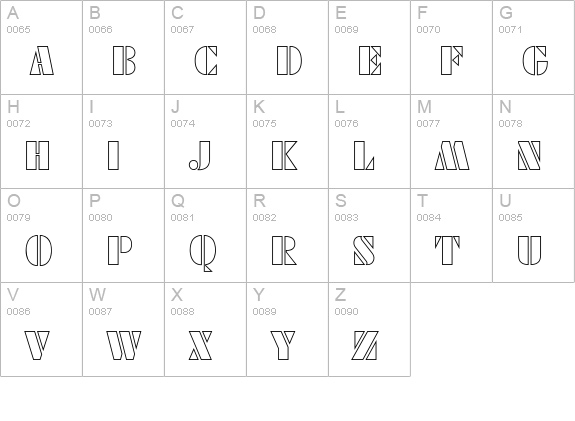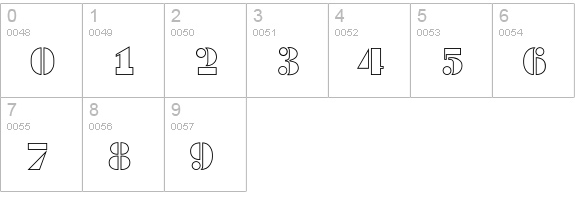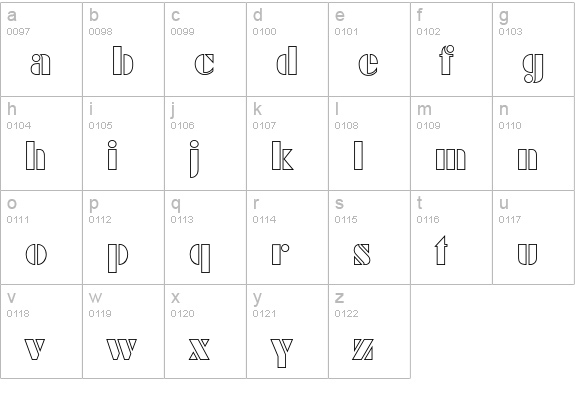
DekoblackOpen font is a stunning display typeface that exudes elegance and modernity. With its sleek and bold design, this font is perfect for a wide range of creative projects, from branding to advertising to editorial design. The geometric shapes and clean lines of DekoblackOpen make it a versatile choice for both digital and print applications. One of the best things about DekoblackOpen font is that it is completely free to download. You can easily access this eye-catching typeface at FontsMarket.com, where you can add it to your font collection with just a few clicks. Whether you're a designer looking to elevate your projects or a creative enthusiast seeking a stylish font for personal use, DekoblackOpen is sure to make a statement. Download it today and unleash your creativity with this exceptional typeface.